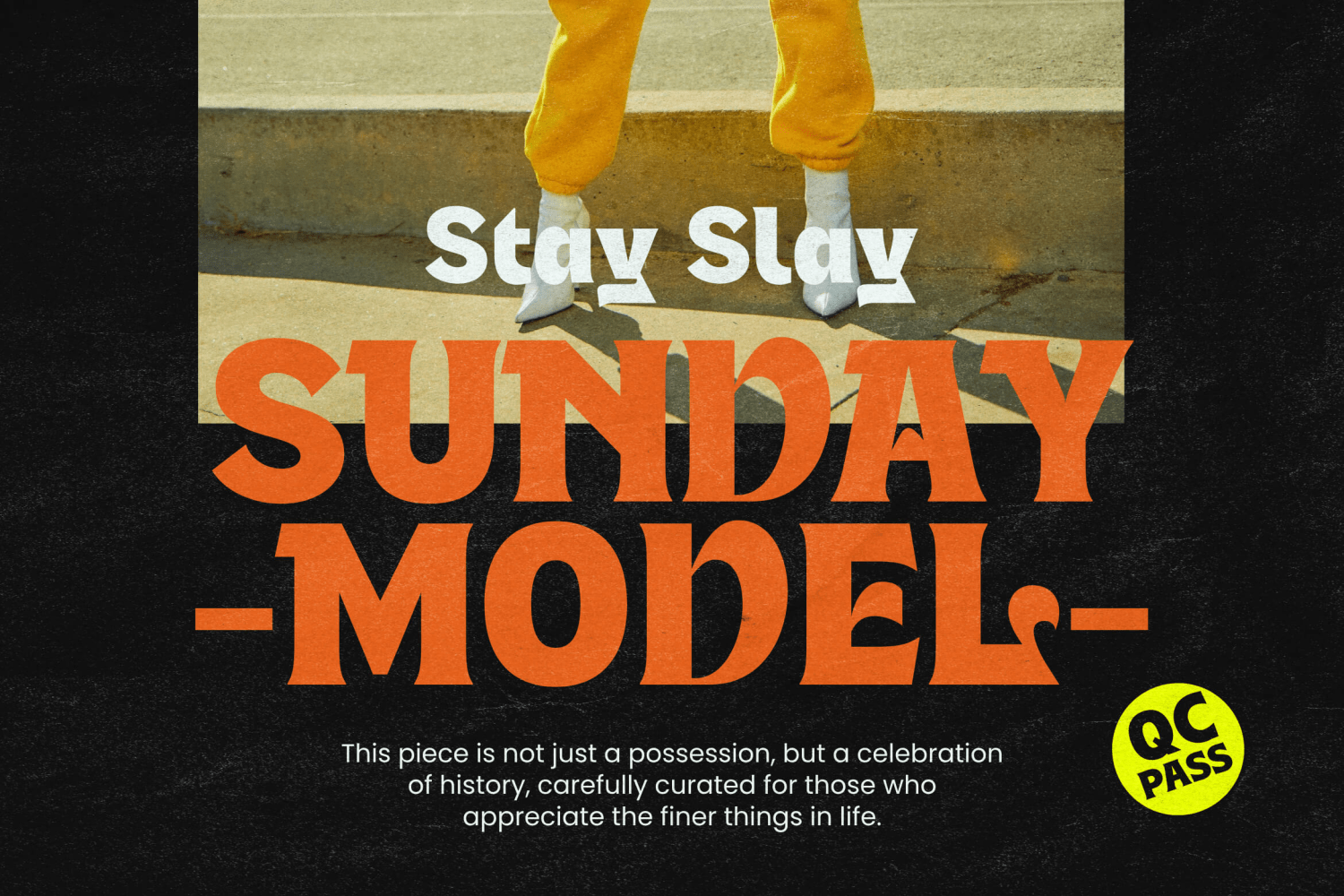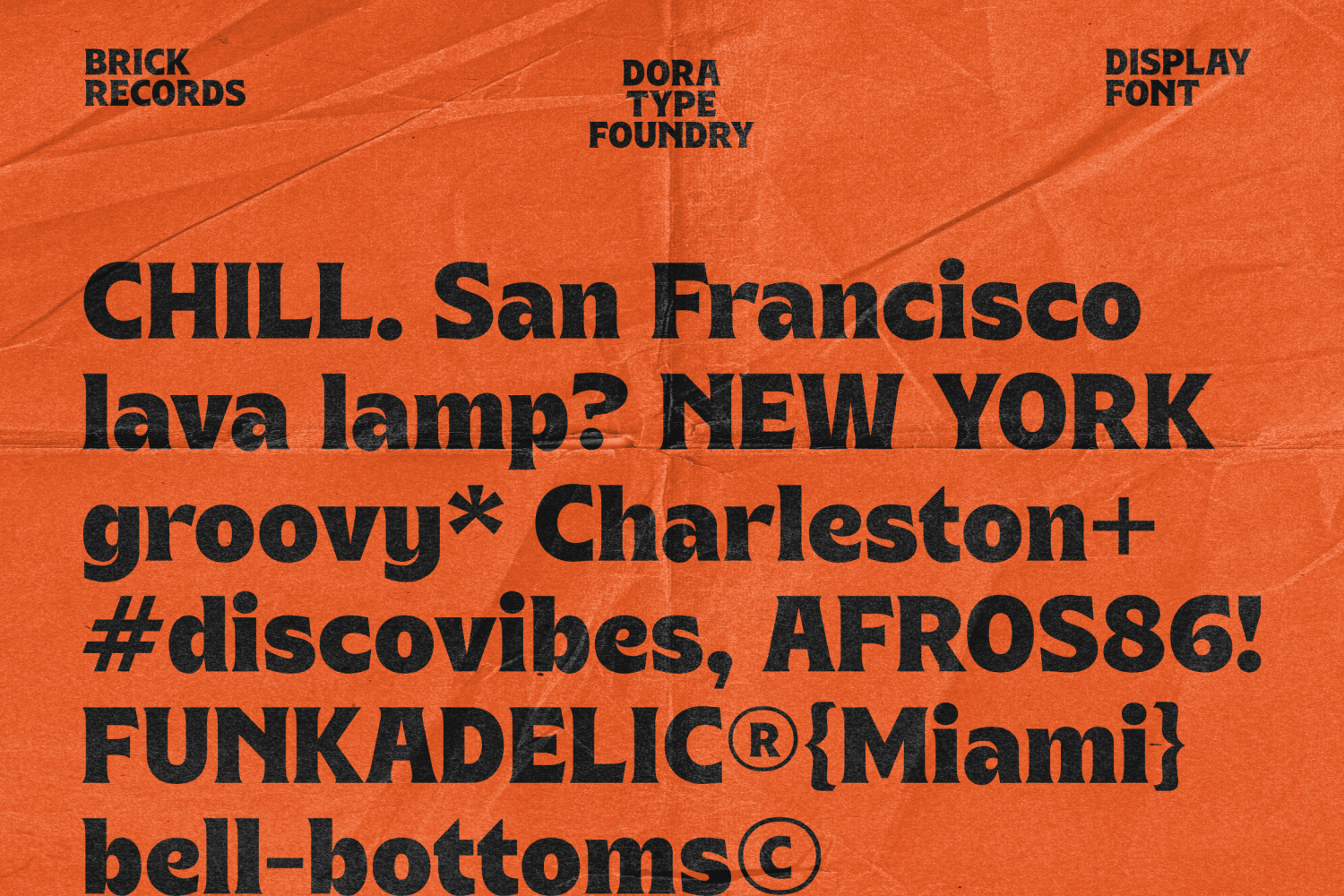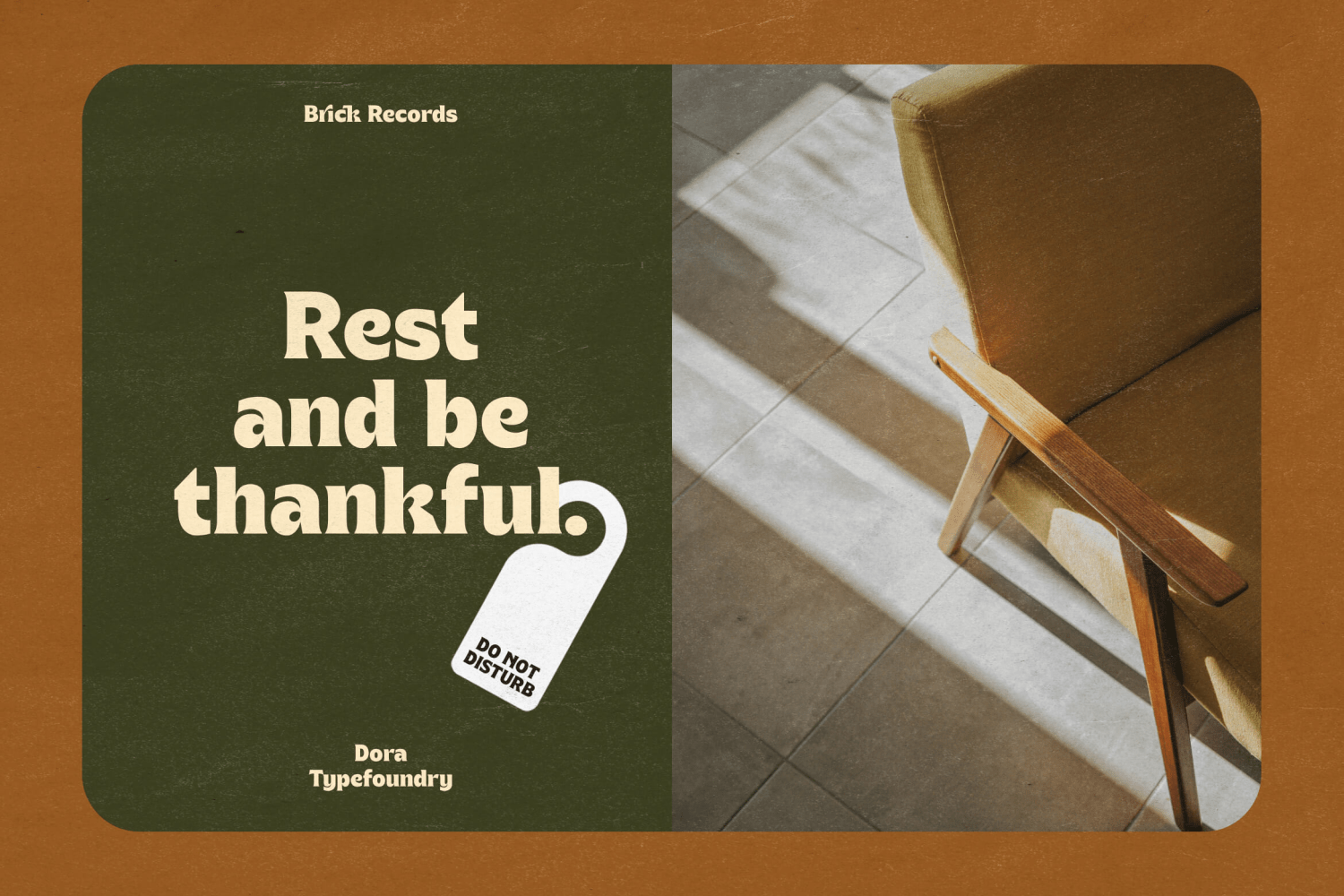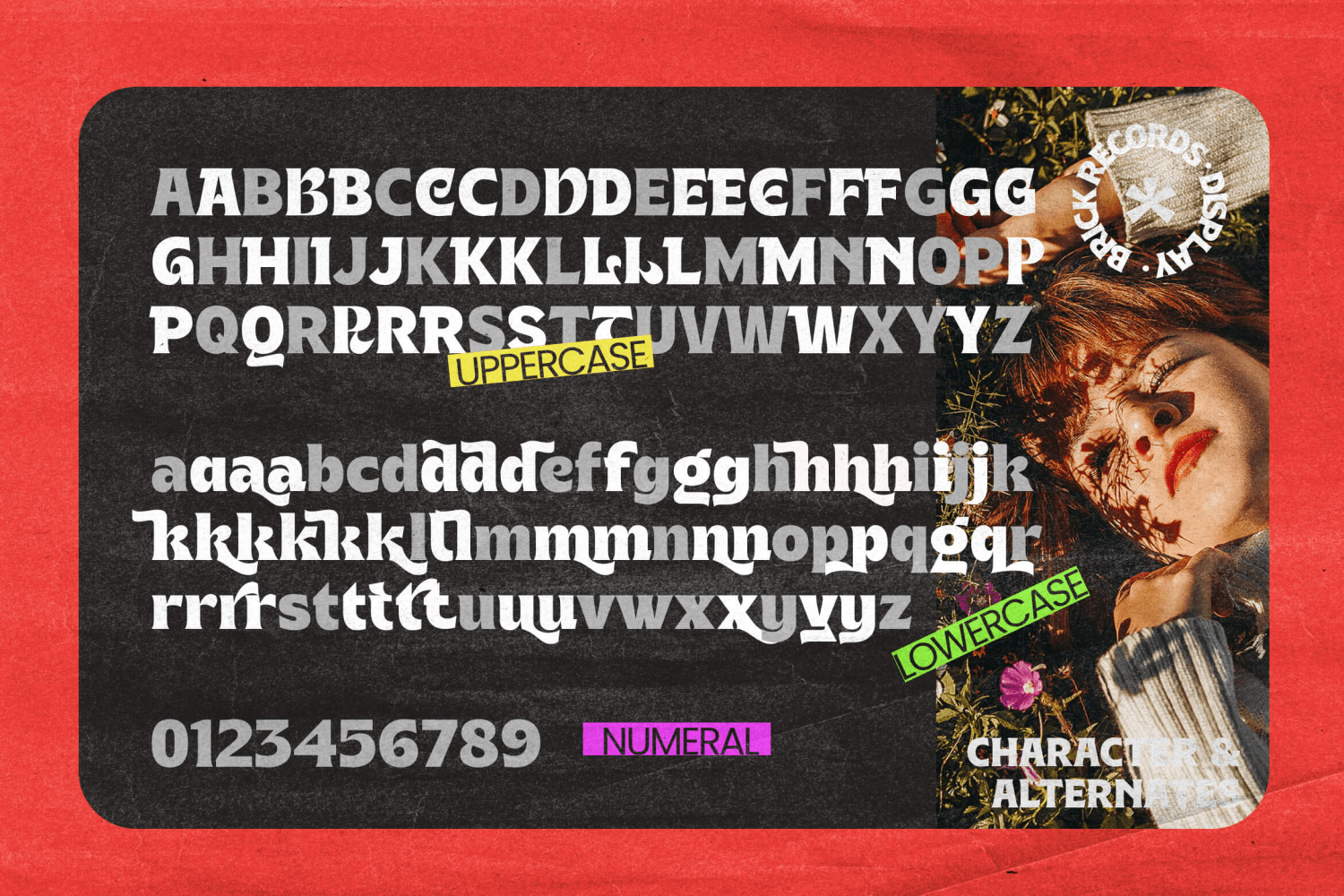
Brick Records is a bold serif typeface with a vintage and retro look! You'll definitely love this font that gives off a sophisticated feel even with all its playfulness. equipped with ligatures, the alternative becomes an attractive option. Brick…